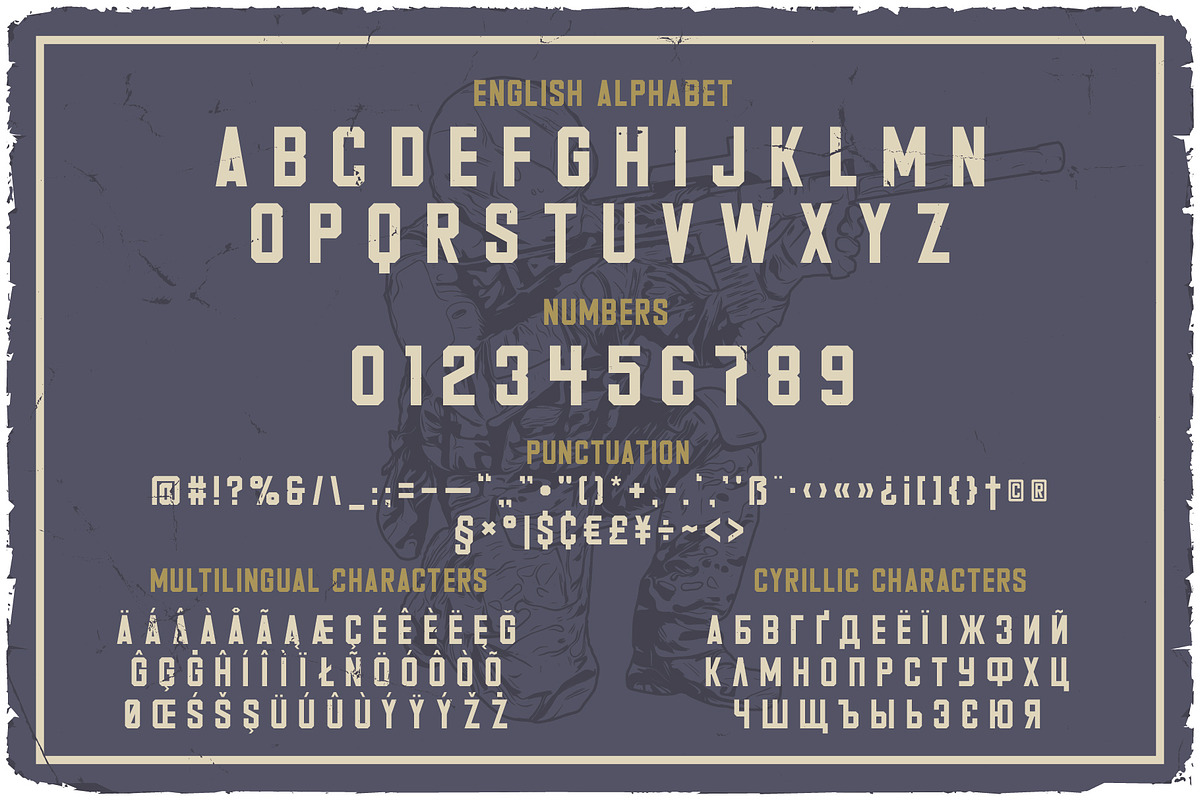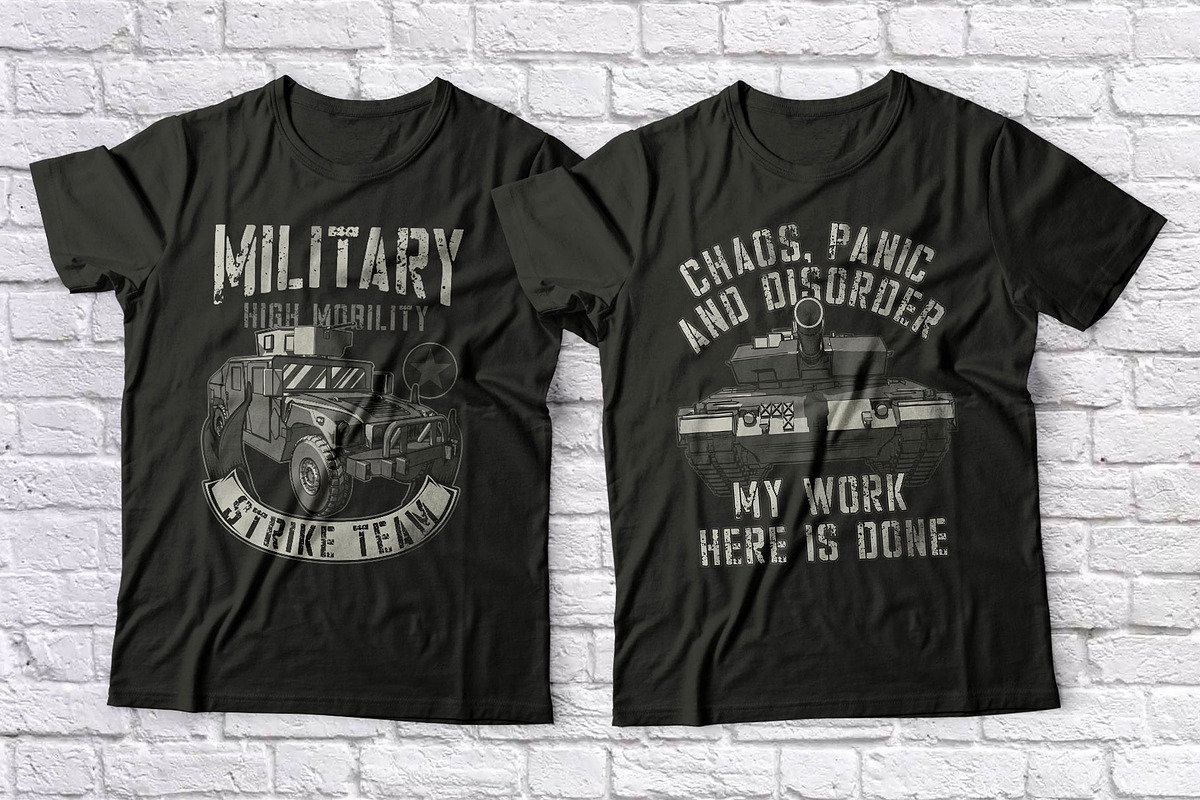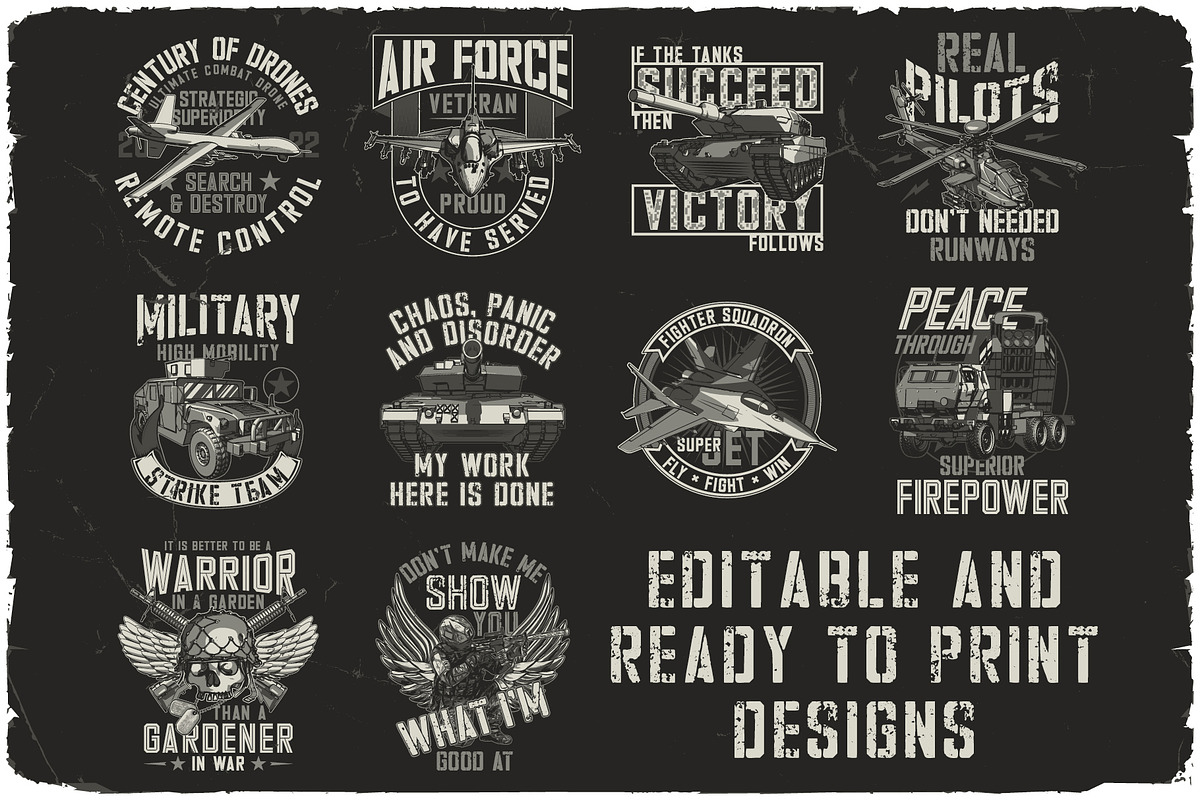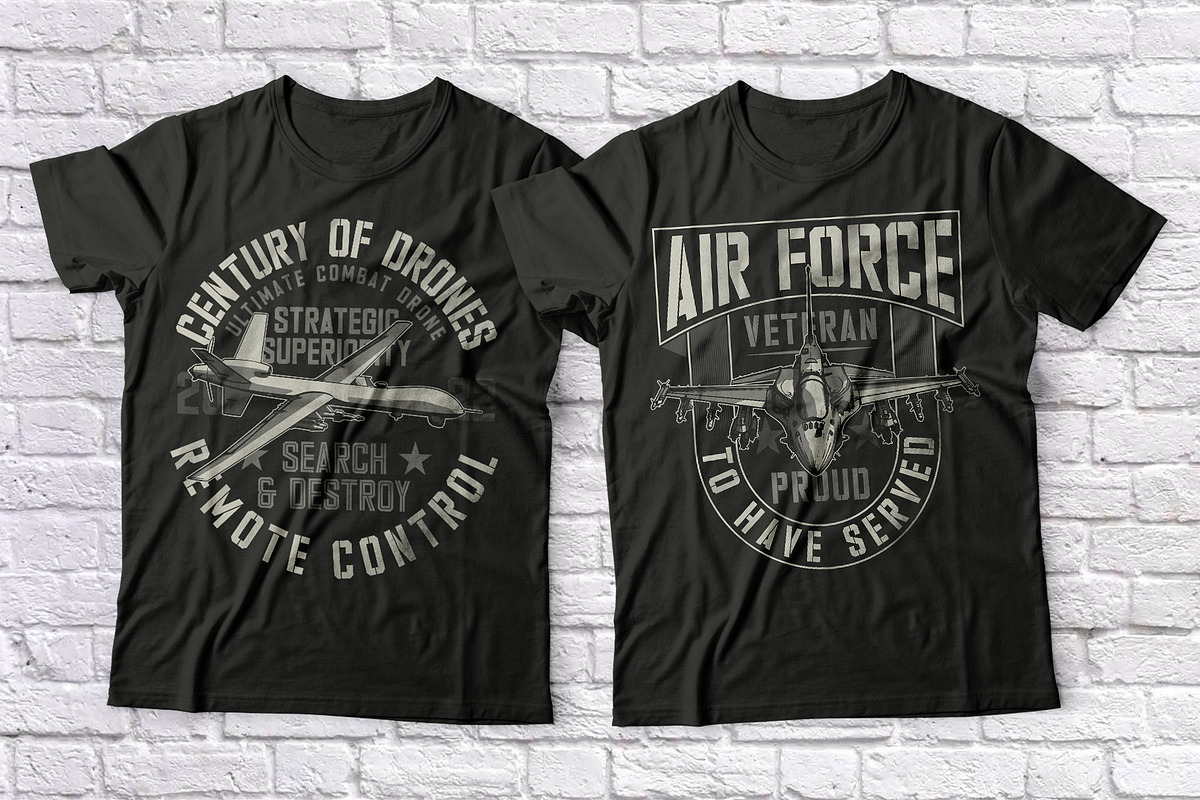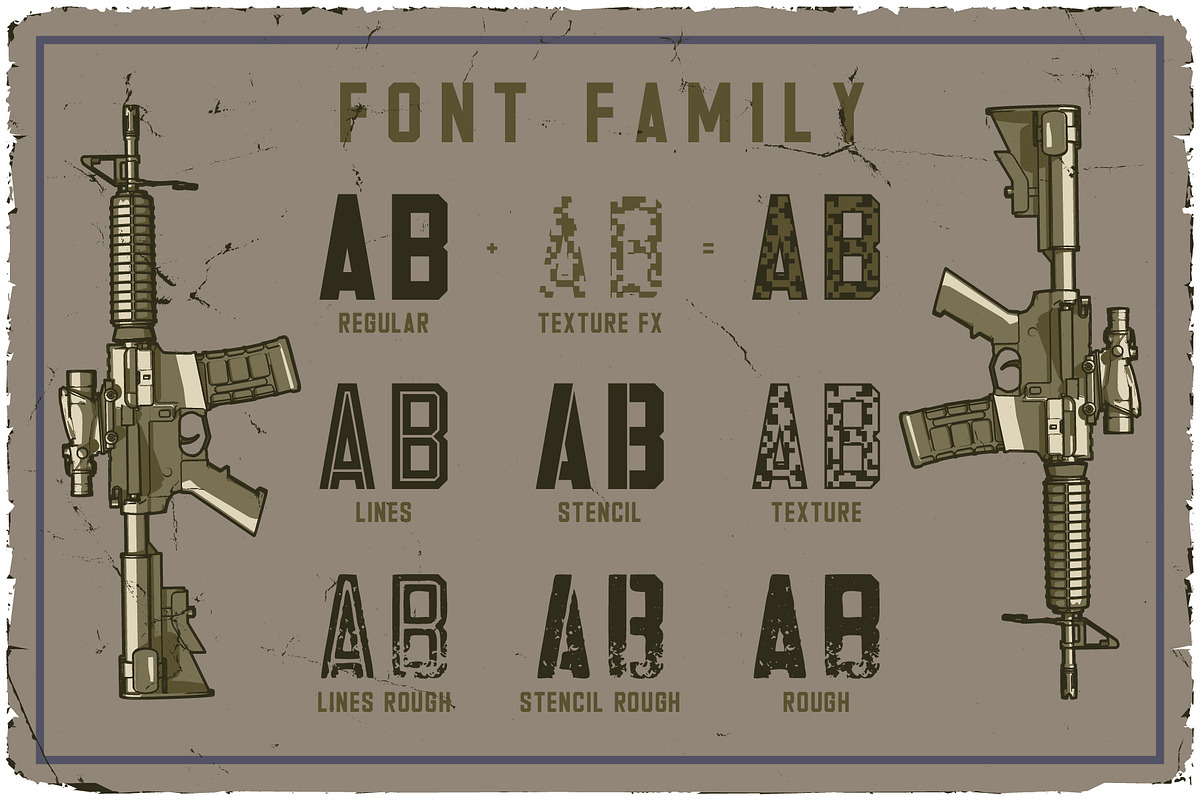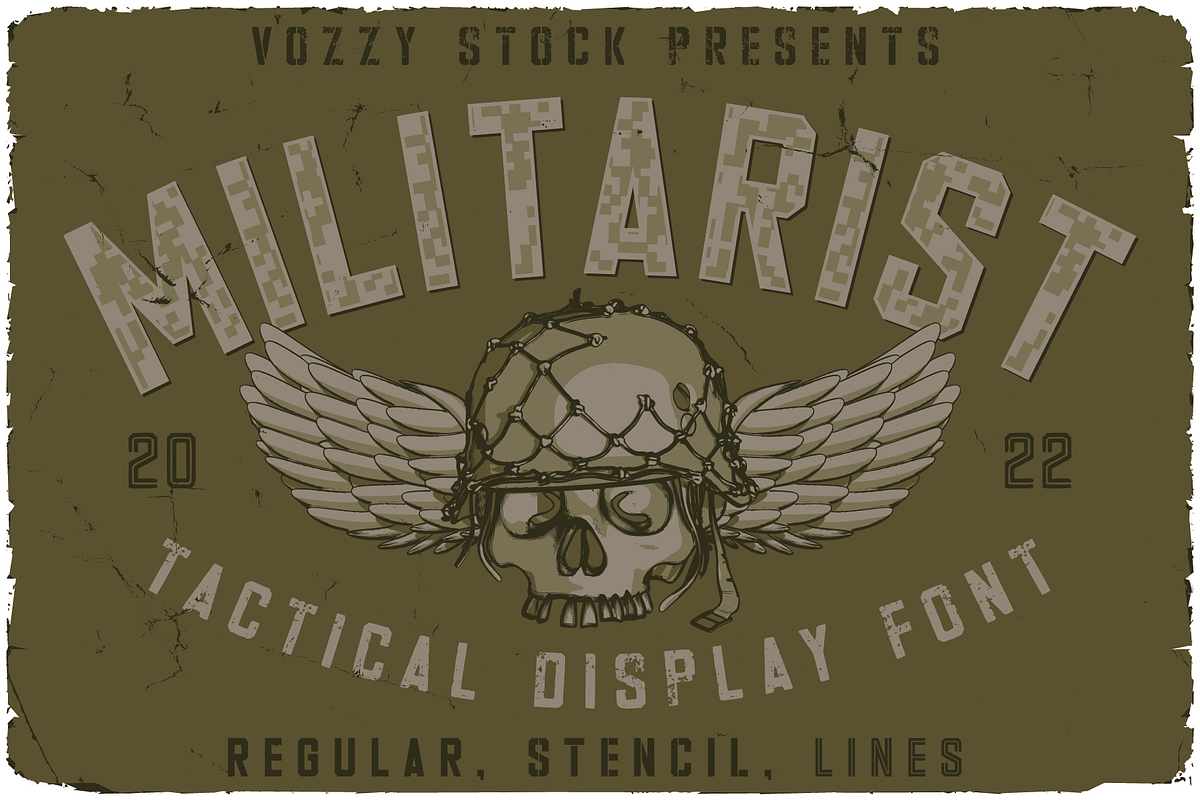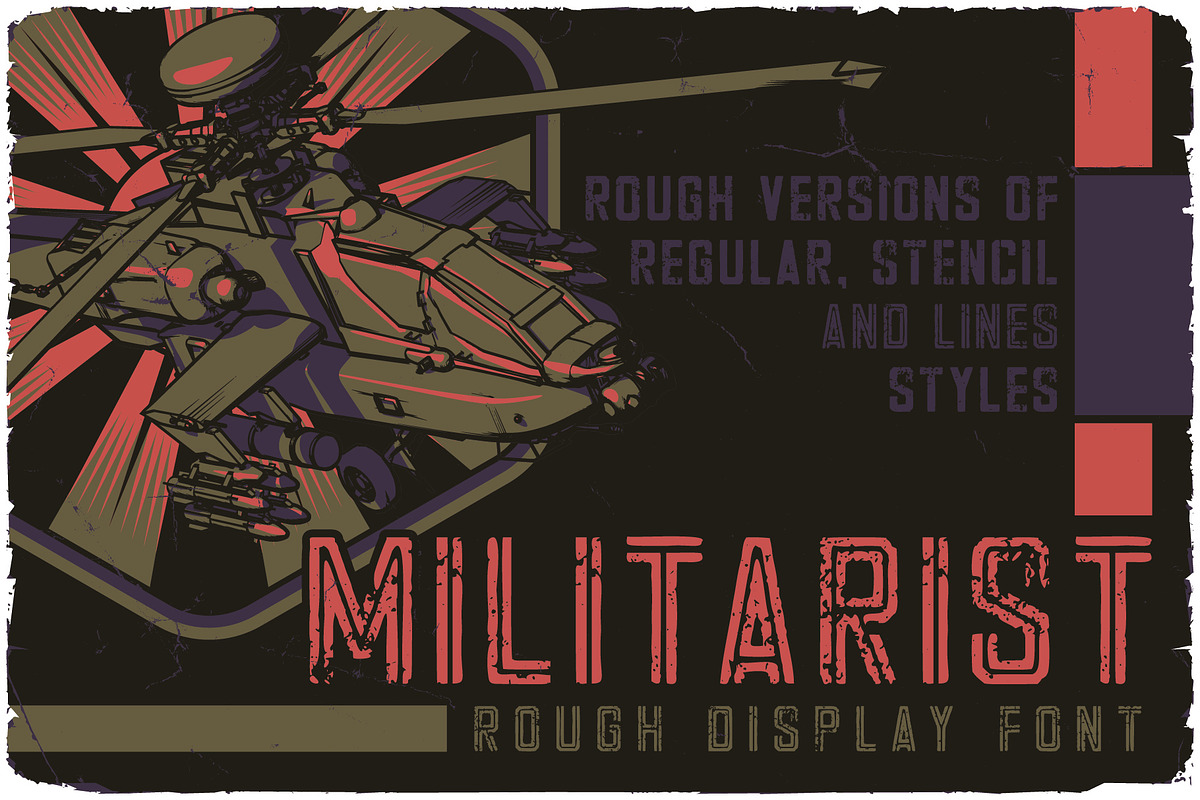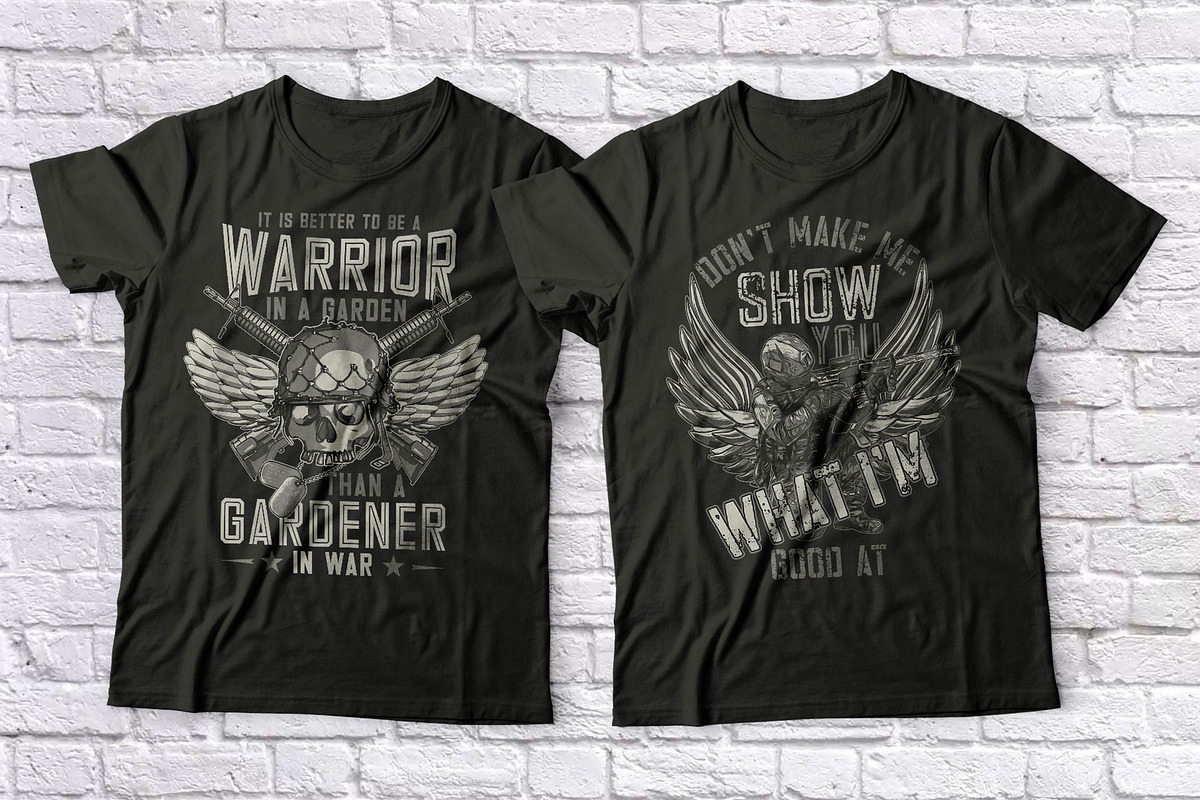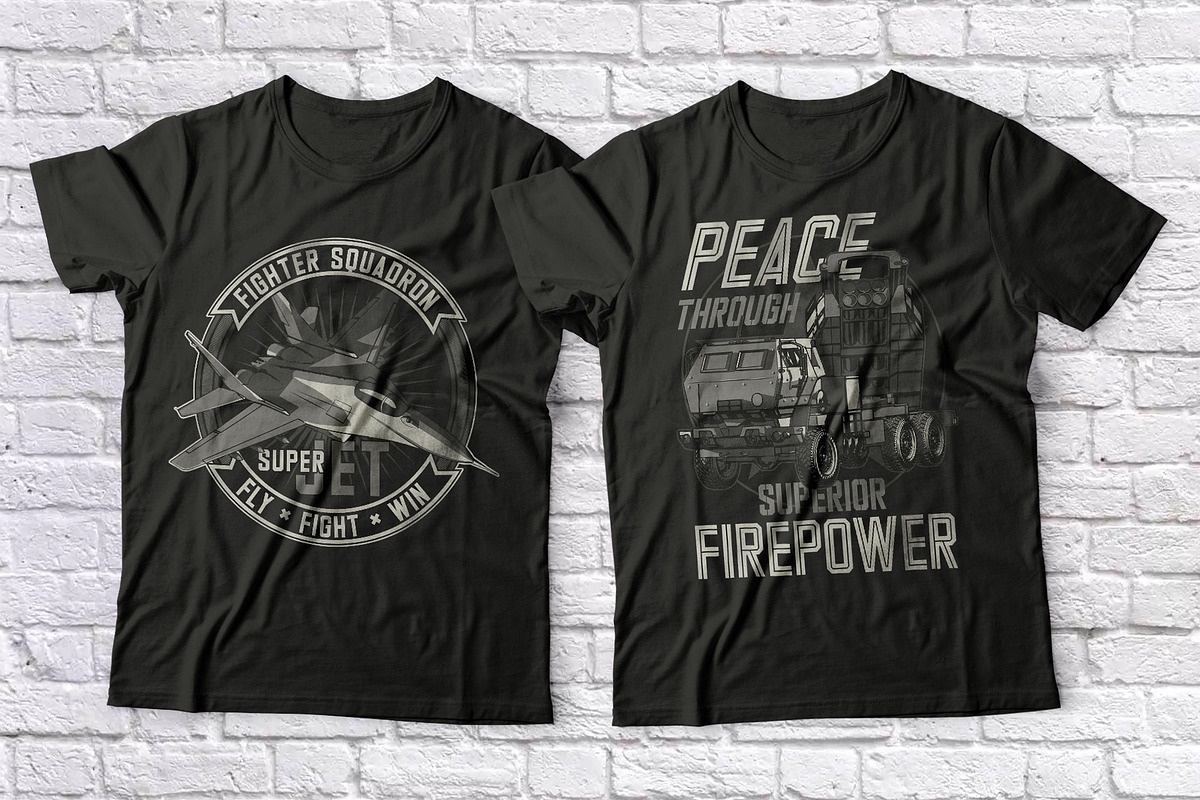
Militarist Font And Graphics
Introducing military label font named Militarist. This font has a cyrillic and multilungual characters support (check out all available characters on previews). The font family has eight styles: Regular, Stencil, Lines, Texture, Texture FX, Rough, Stencil Rough and Lines Rough. This font will look good on any military or serious styled designs like a poster, T-shirt, label, logo, etc.
- A lot of additional symbols, cyrillic and multilingual support.